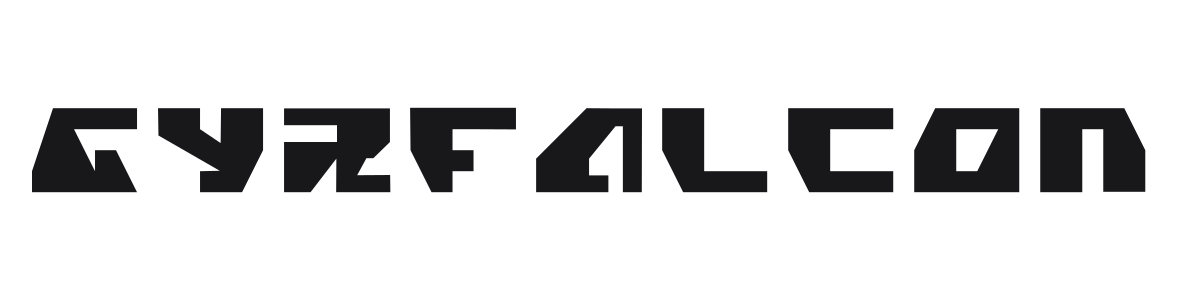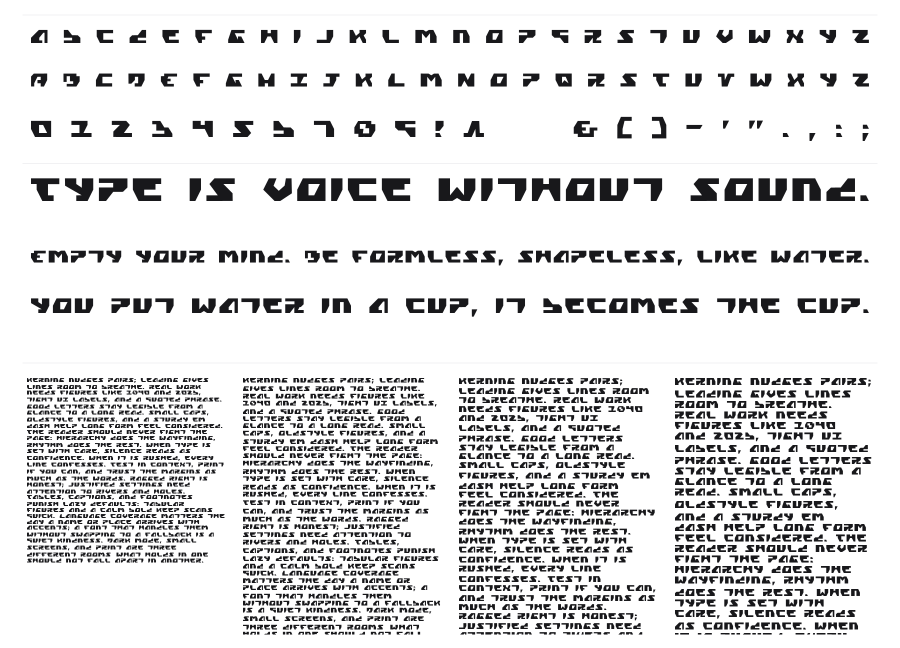
Gyrfalcon
Gyrfalcon is a heavy square techno display font built from angular, modular blocks with sharp notched cutouts at corners and stroke junctions. Every character feels engineered rather than drawn, giving it a mechanical, militaristic edge. It works at large sizes for gaming titles, sci-fi branding, or anything that needs a bold industrial presence.